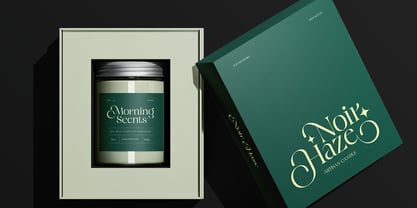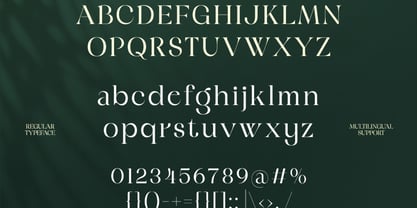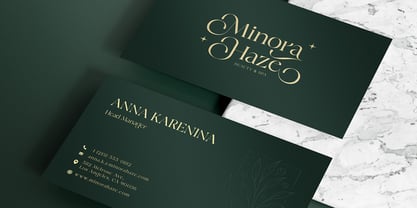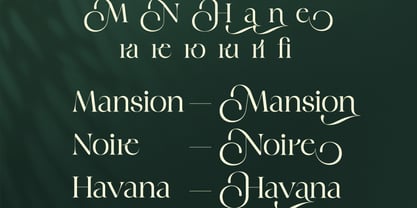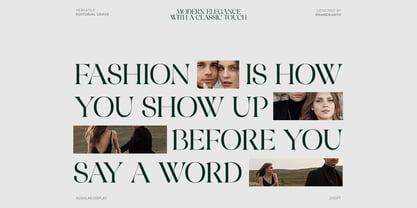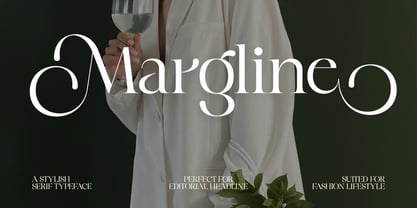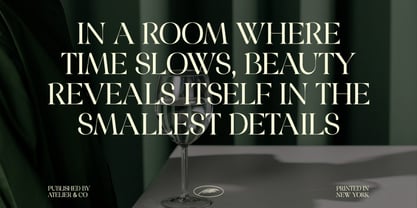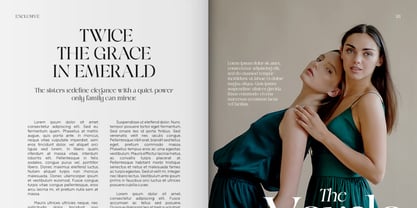
Margline
by Brandearth
The Margline Font Family was designed by Moch Rasjid Wiyono and published by Brandearth. Margline contains 1 styles. More about this family
Margline is an elegant modern serif typeface designed to deliver sophistication, luxury, and graceful typography for contemporary design projects. With its refined serif structure, smooth stroke contrast, and beautifully crafted decorative alternates, Margline brings a timeless yet modern aesthetic to any layout. Margline is an elegant modern serif typeface designed to deliver sophistication, luxury, and graceful typography for contemporary design projects. With its refined serif structure, smooth stroke contrast, and beautifully crafted decorative alternates, Margline brings a timeless yet modern aesthetic to any layout.
Designers: Moch Rasjid Wiyono
Foundry: Brandearth